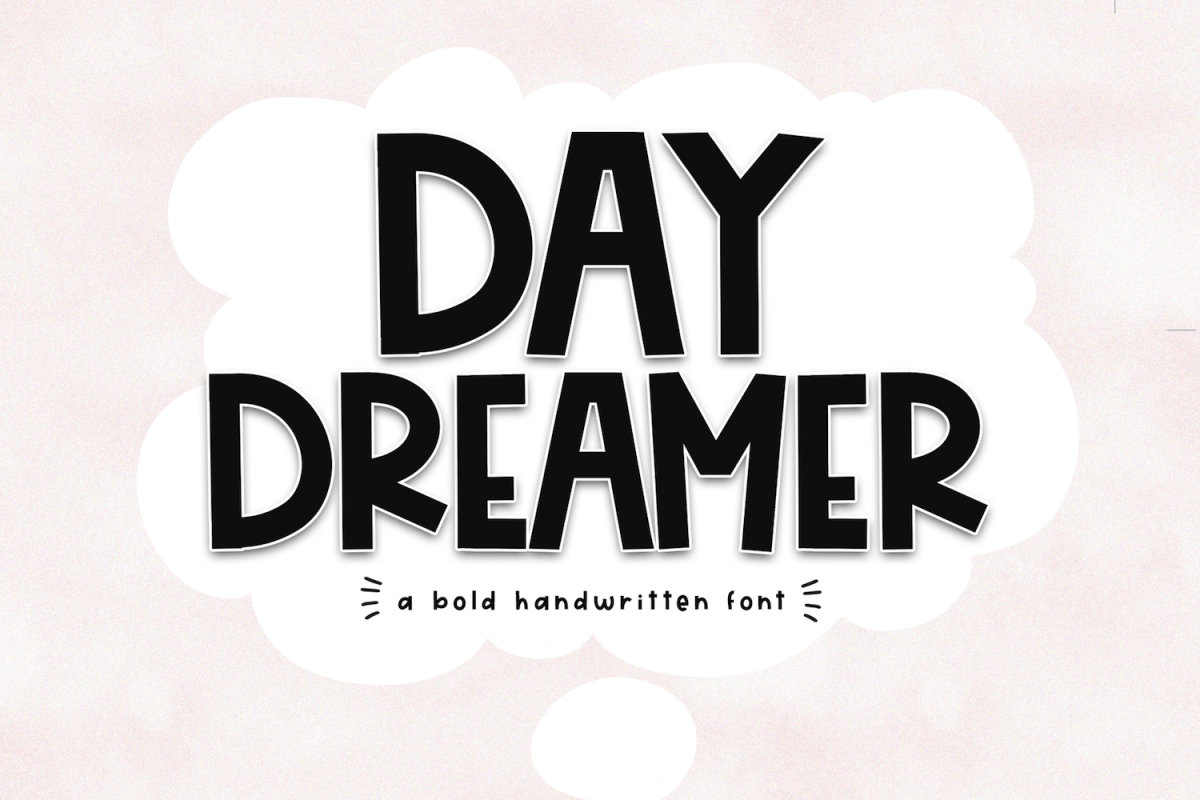
Day Dreamer - A Bold & Cute Handwritten Font
DayDreamer
Day Dreamer is a bold & cute handwritten font.
This font is perfect for quotes, shirts, mugs, headings, logos, invitations and more!
This font does include accent characters.